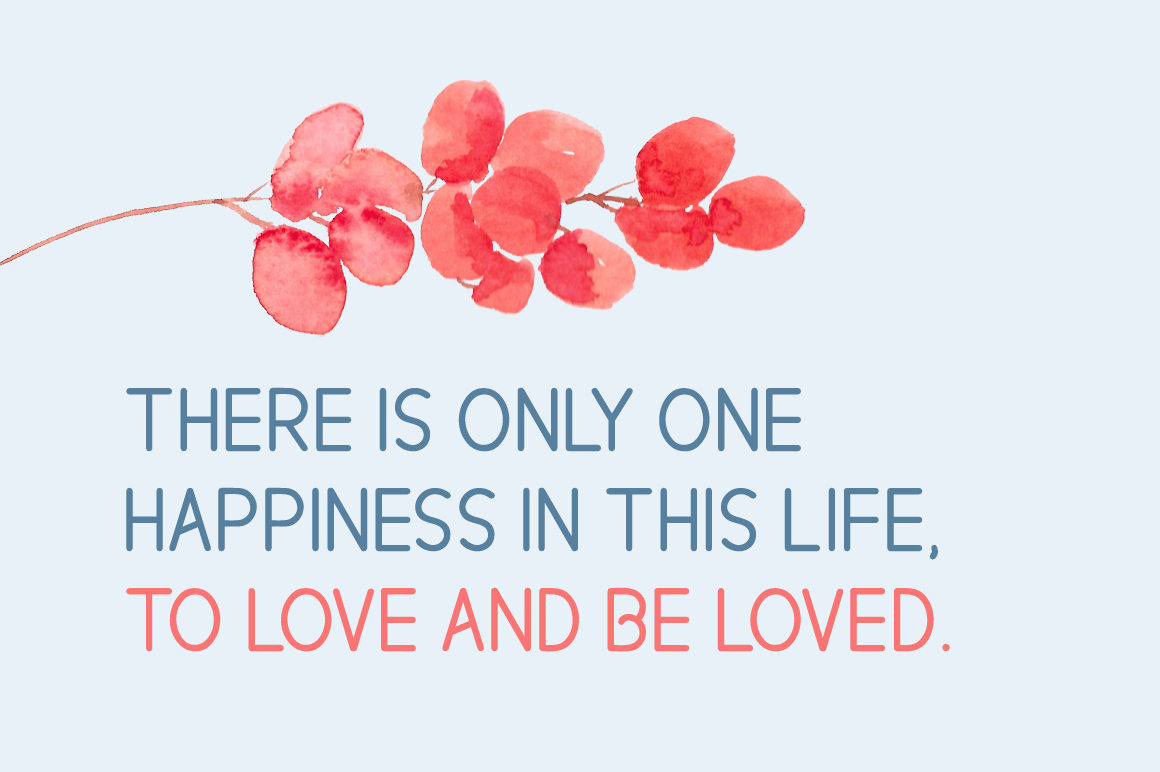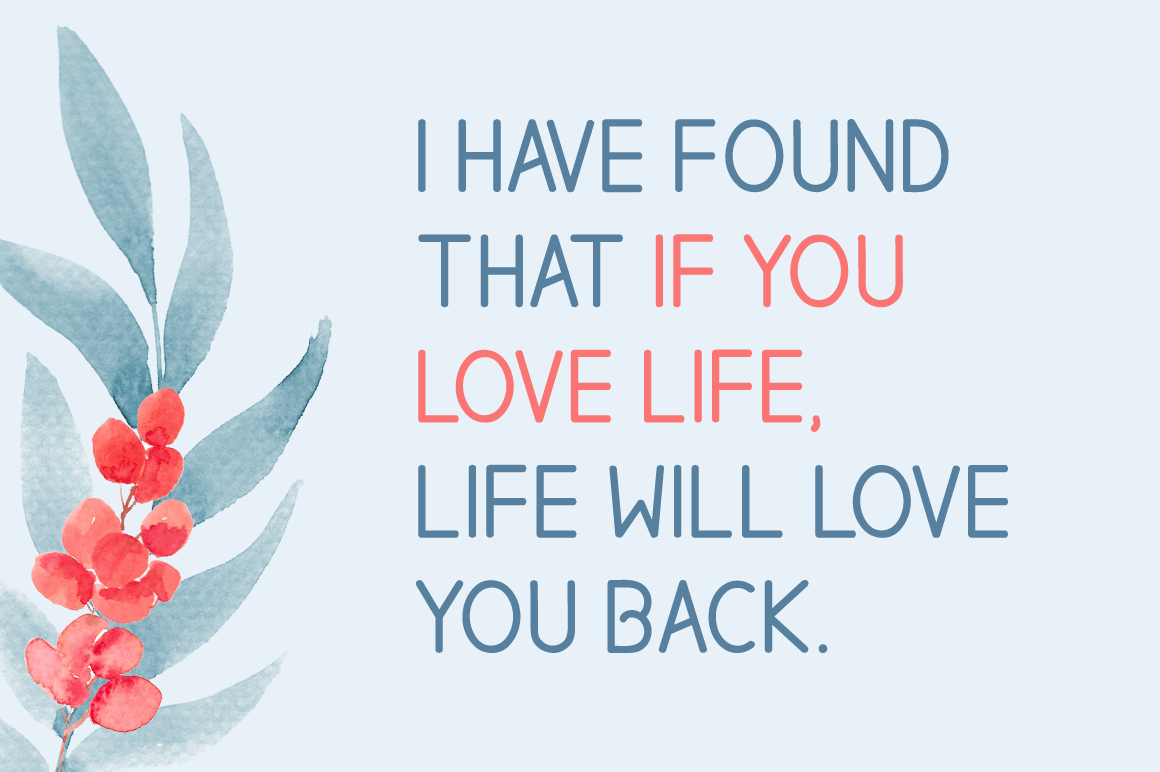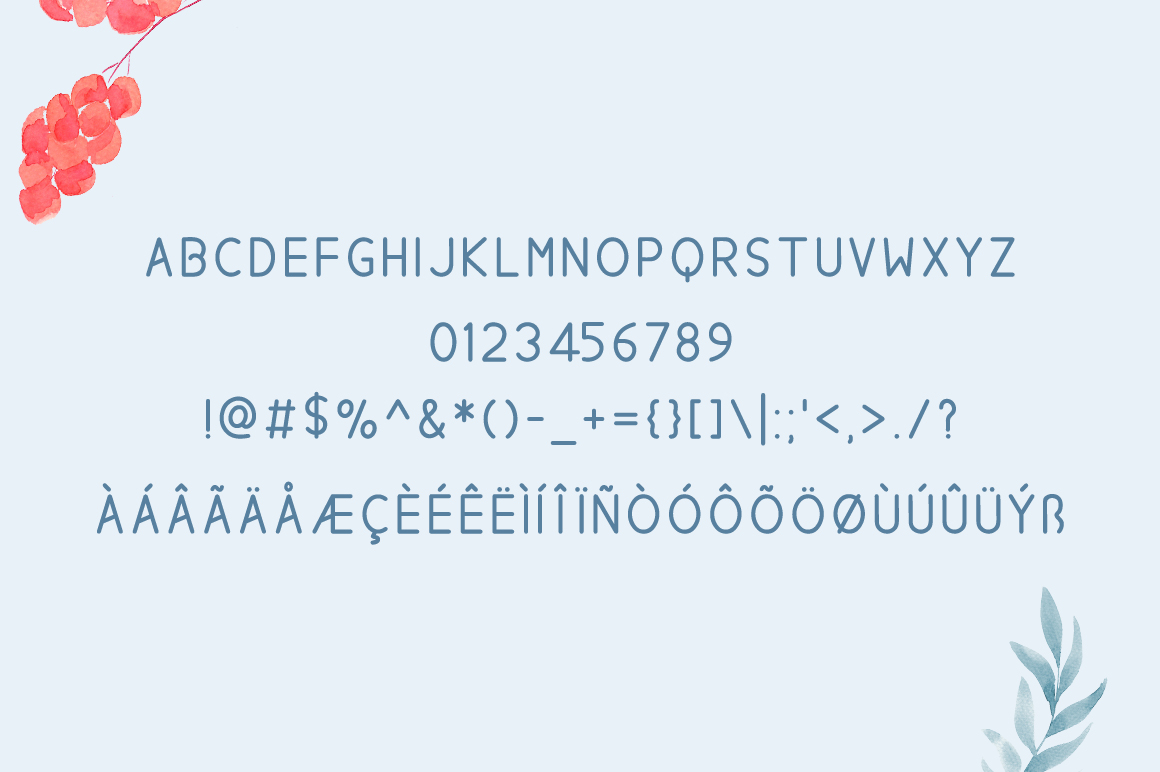
Introduction to Gabrina Font
Gabrina is a gorgeous sans serif font, perfect for displays or headline purposes.
This font is cleanly structured, and well weighted making it agreeable to a large number of design styles .